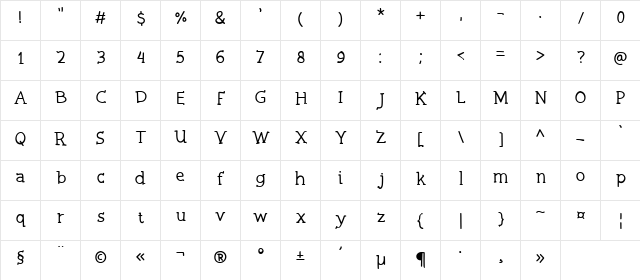
Swiming Frog Regular Font Preview
Swiming Frog Regular
Swiming Frog Regular Font Details
| Foundry | Agustian Eko Saputro |
| Designer | Agustian Eko Saputro |
Design Context for Swiming Frog Typeface
Swiming Frog takes a measured approach to typography — its balanced proportions and neutral character make it a reliable workhorse for both digital and print work.